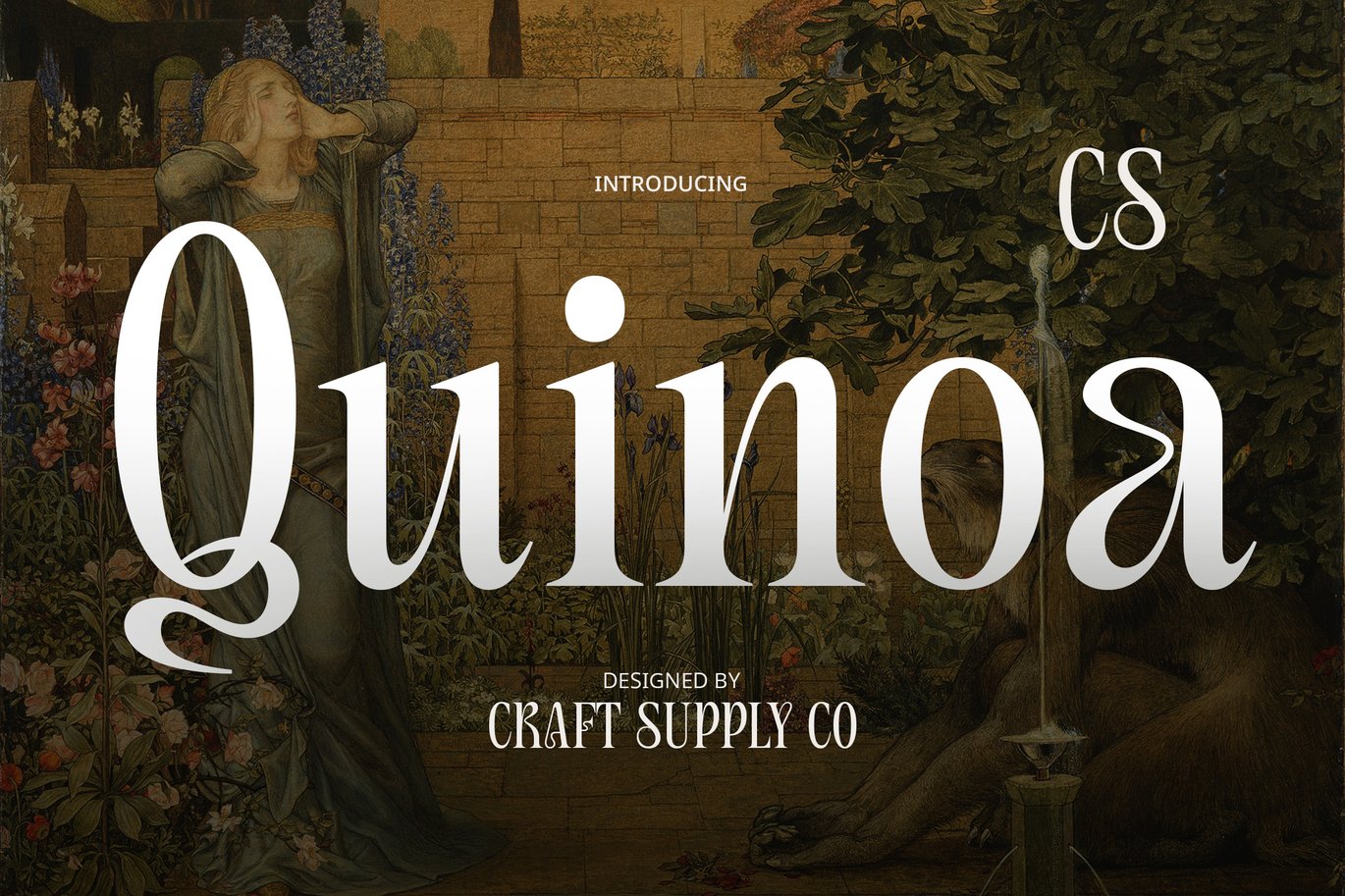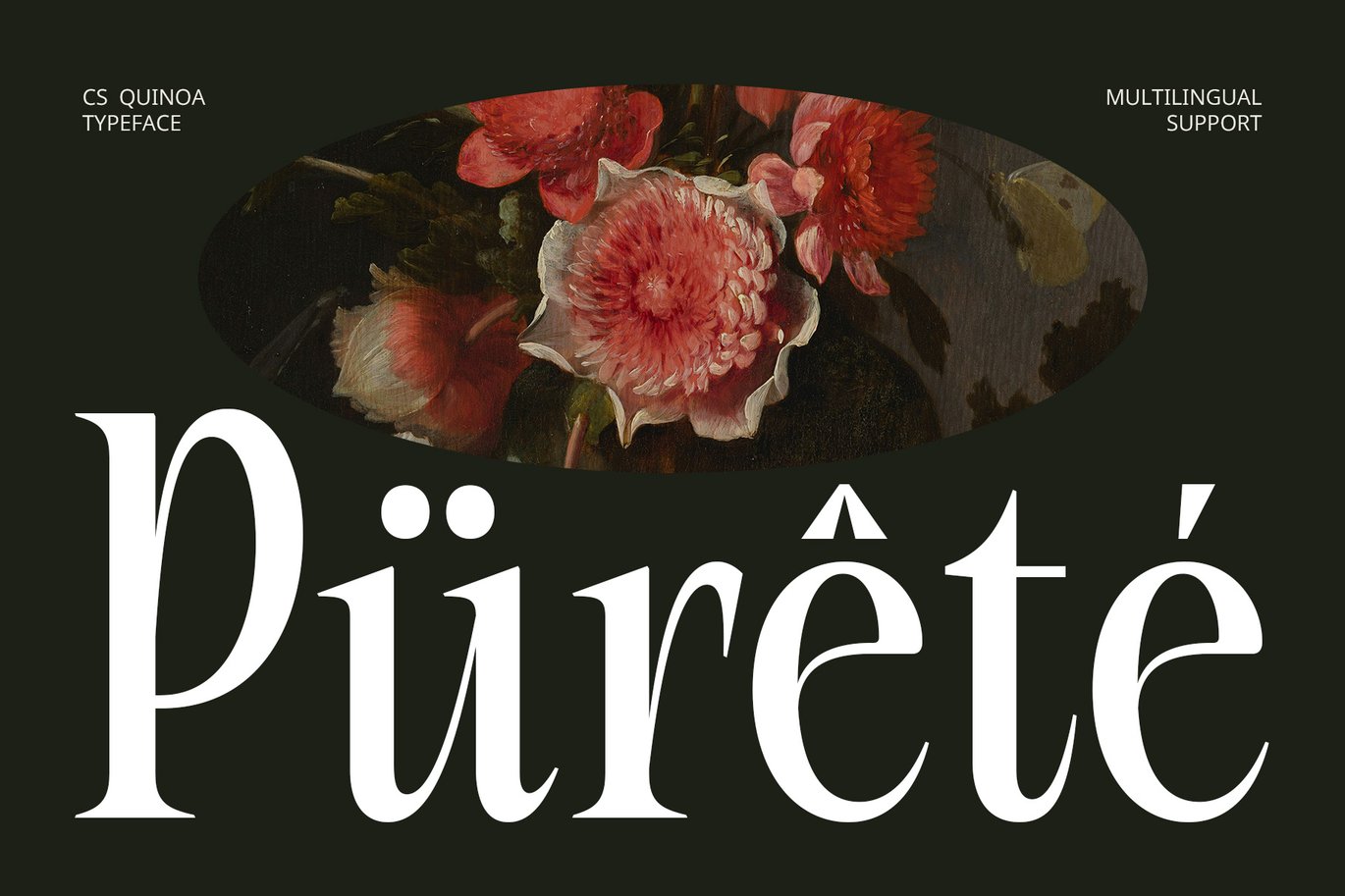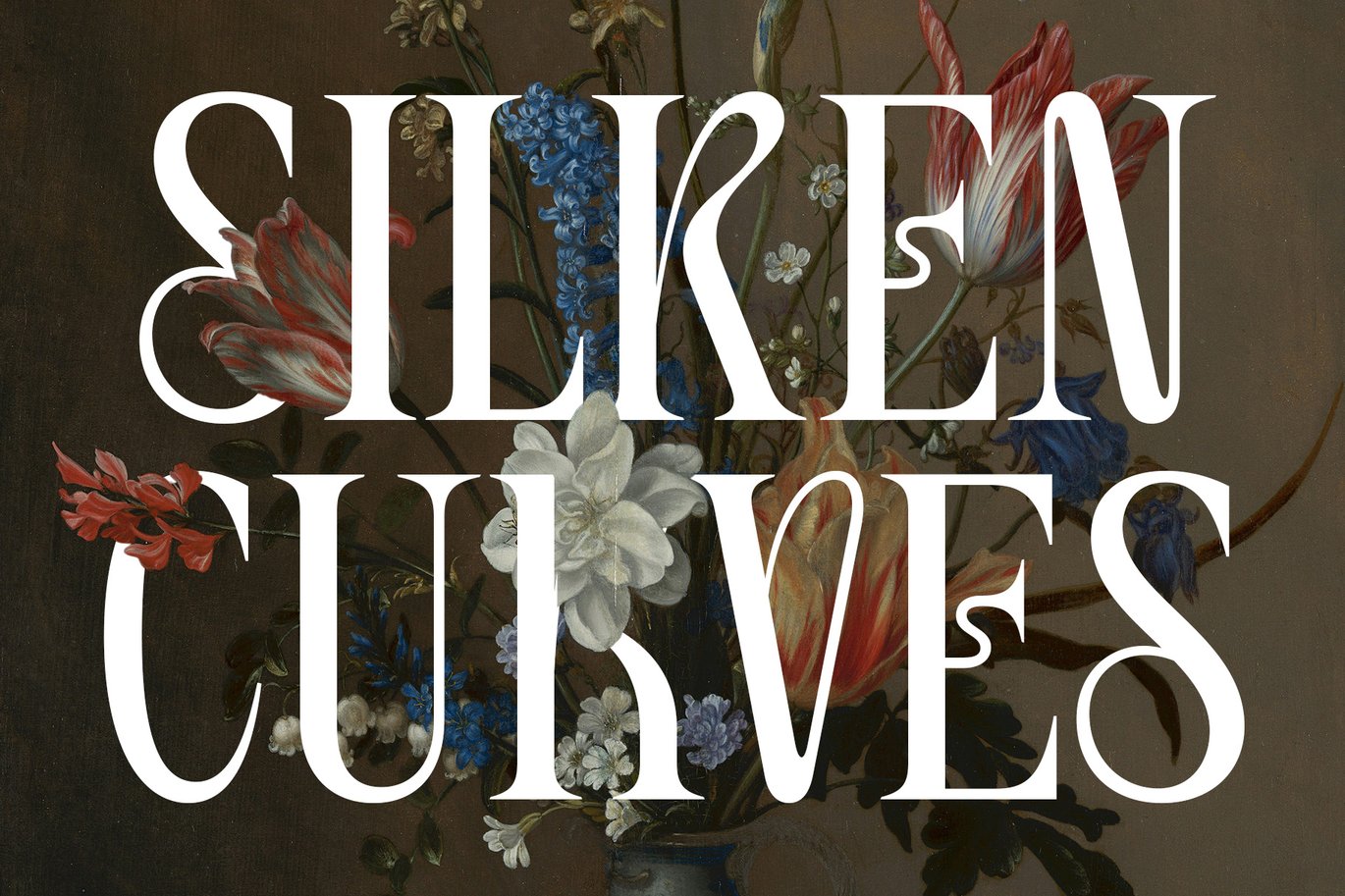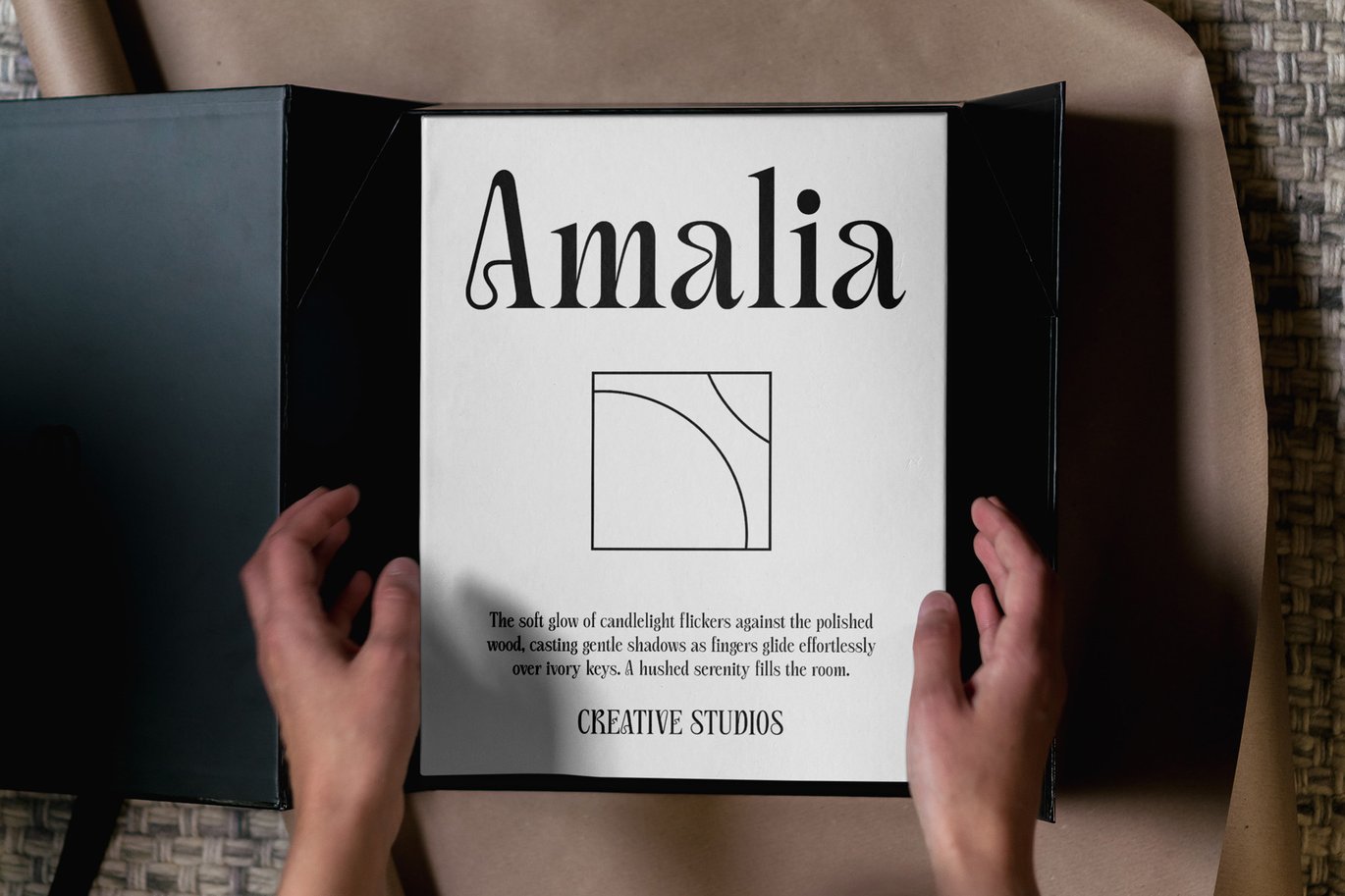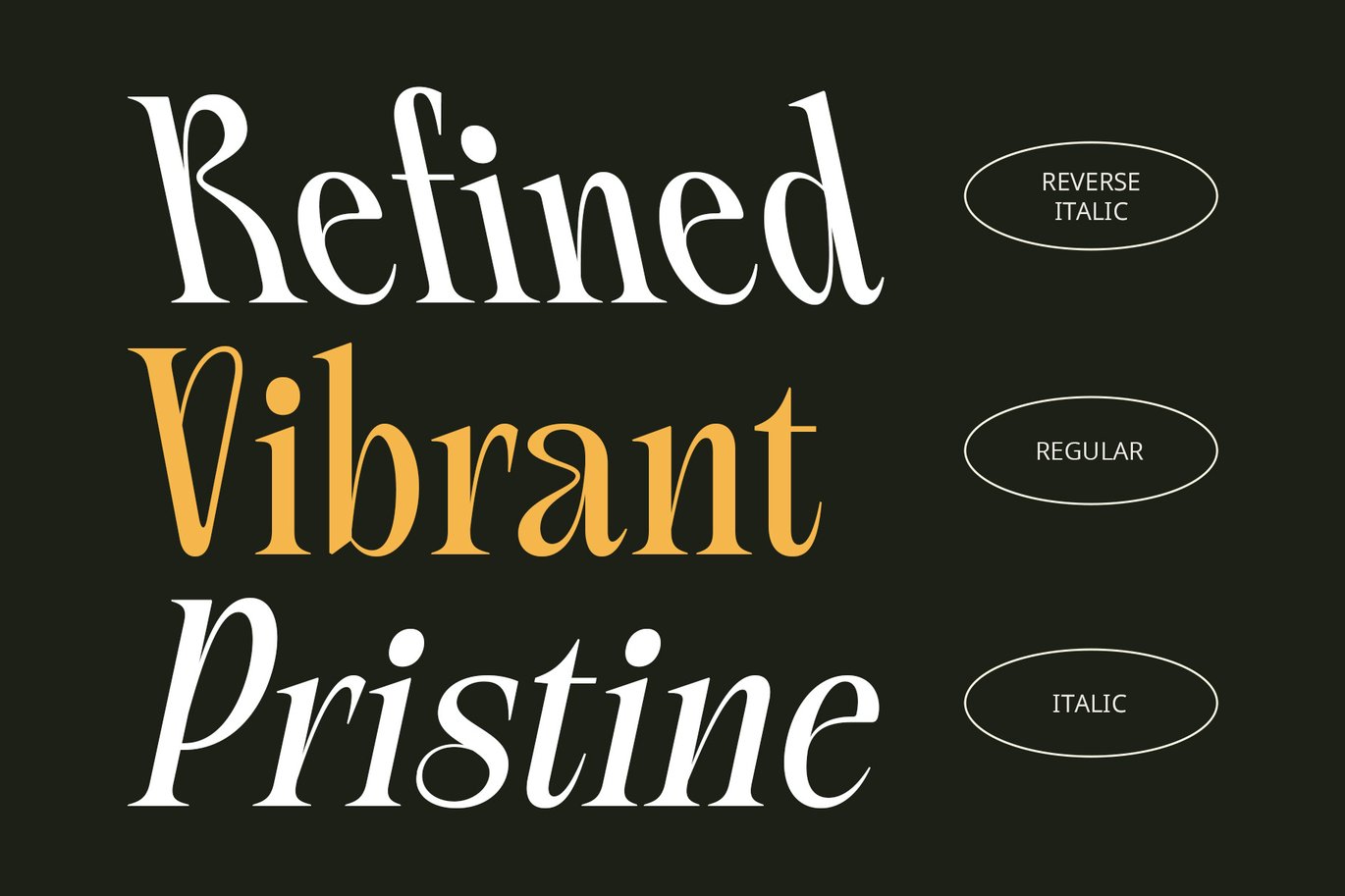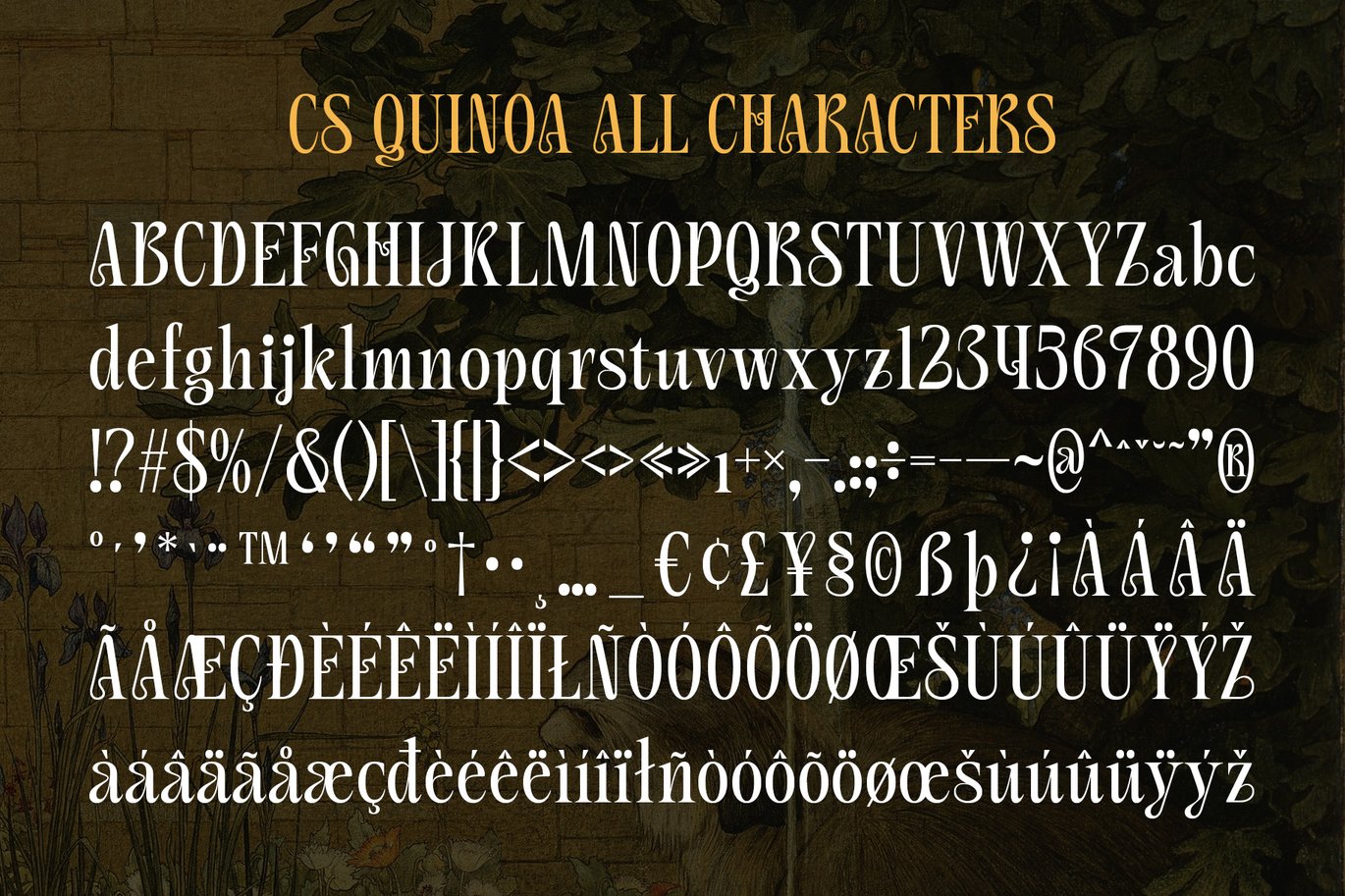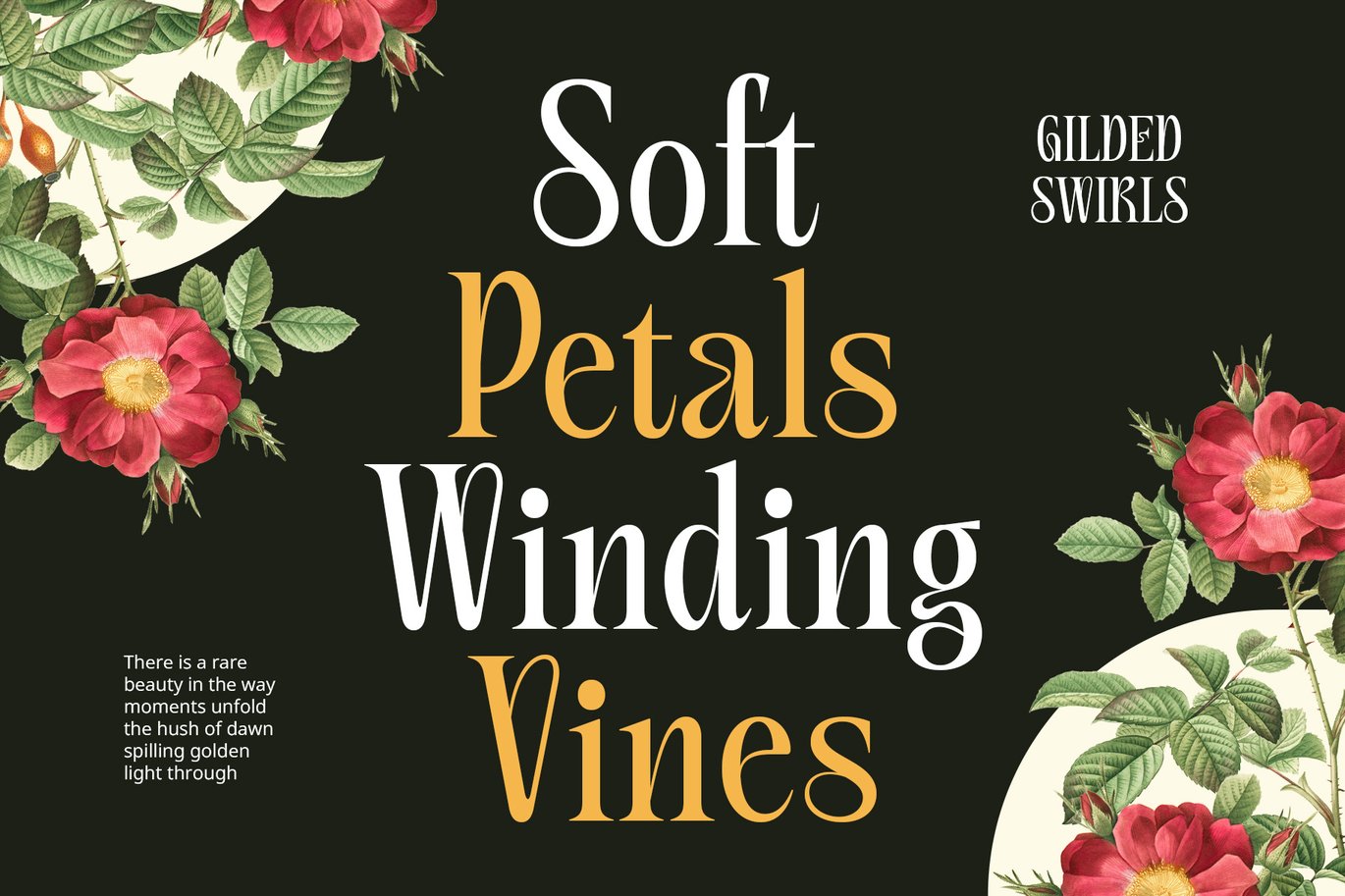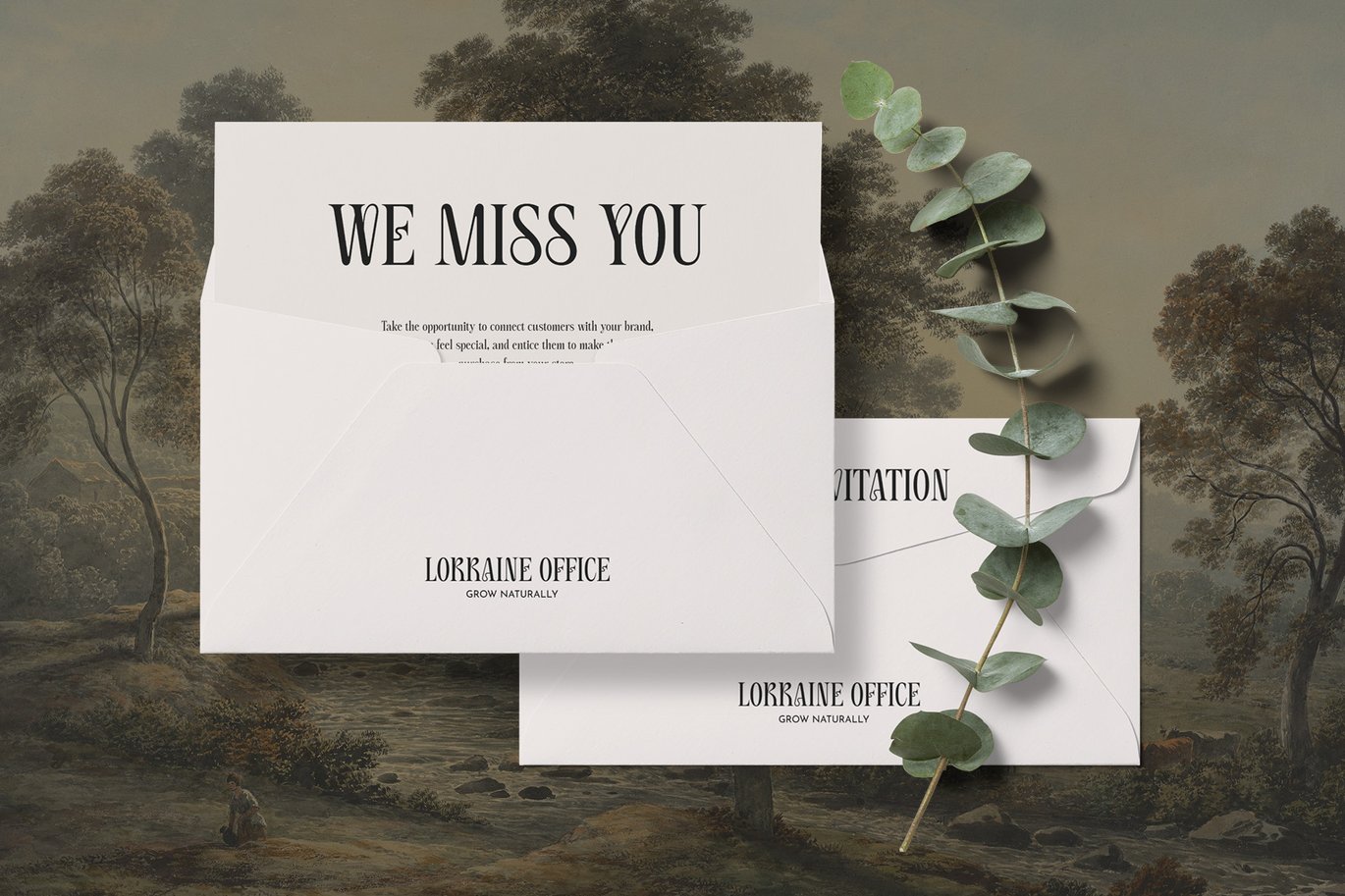
Quinoa – Art Nouveau Font
CS Quinoa – An Elegant Art Nouveau Display Font
Timeless Elegance with a Modern Twist
CS Quinoa is a sophisticated display serif font that seamlessly blends Art Nouveau-inspired elegance with a contemporary condensed form. Its slender proportions, flowing curves, and intricate vintage details create a refined yet artistic aesthetic, making it an exceptional choice for designs that demand a touch of classic charm.
Graceful, Decorative, and Distinctive
Inspired by the ornate typography of the early 20th century, CS Quinoa features delicate curves, elongated serifs, and balanced letterforms, evoking a sense of romantic sophistication. The fusion of historical beauty and modern refinement ensures it stands out in luxury branding, high-end packaging, and elegant editorial layouts.
Perfect for High-End Design
Ideal for logos, invitations, fashion branding, book covers, and premium product packaging, CS Quinoa elevates typography with its graceful yet bold presence. Whether used for statement headlines or stylish subtext, it enhances projects with a luxurious and artistic appeal.
A Font That Embodies Elegance
For designers seeking to infuse their work with classic refinement and a contemporary edge, CS Quinoa delivers a captivating and timeless visual experience, making every design feel sophisticated, decorative, and unforgettable.